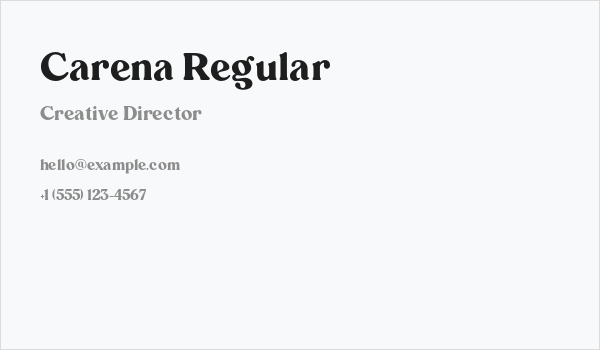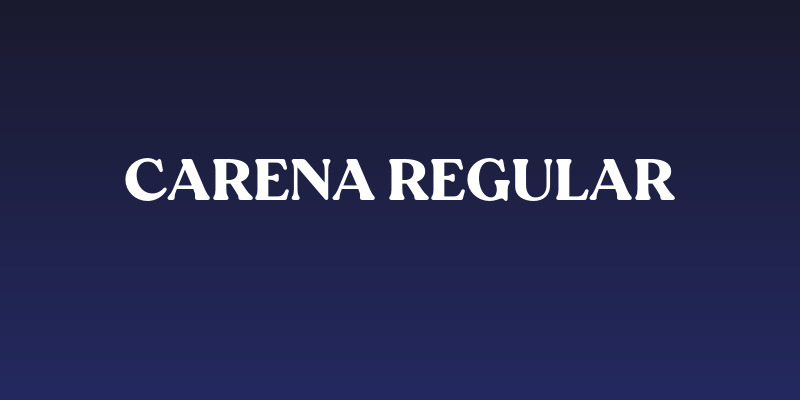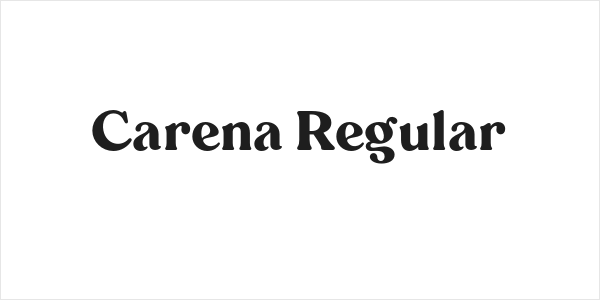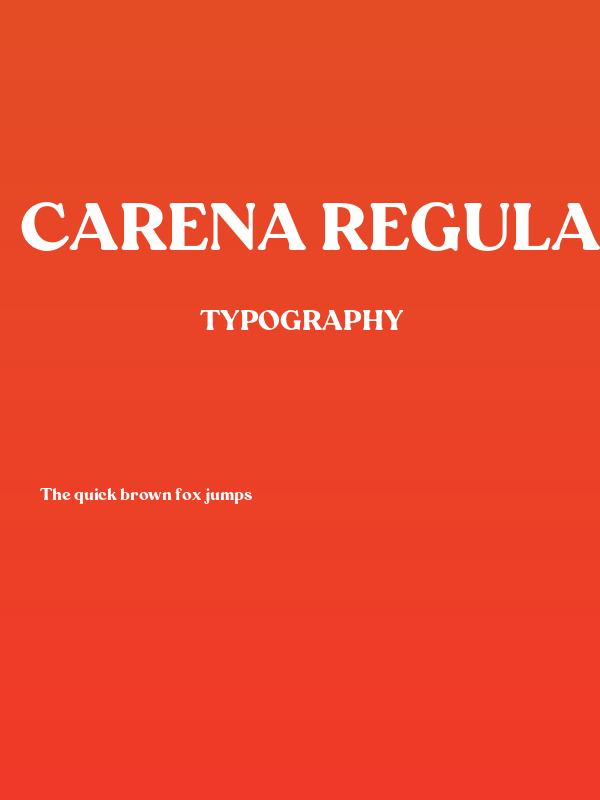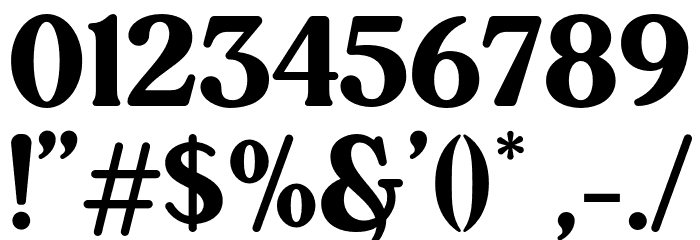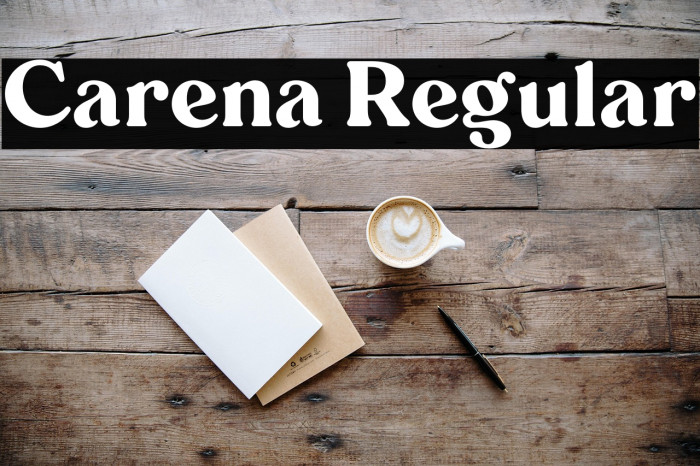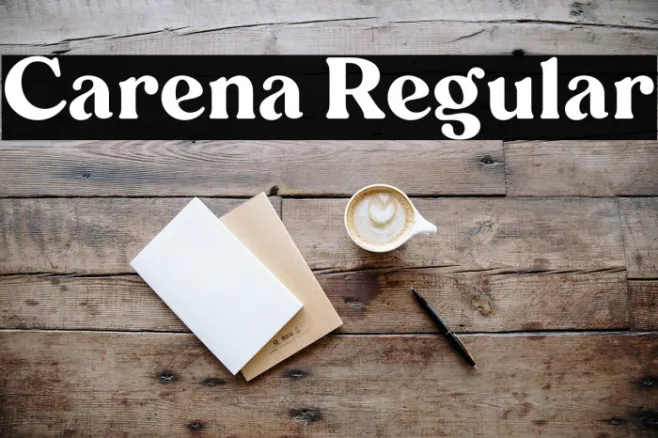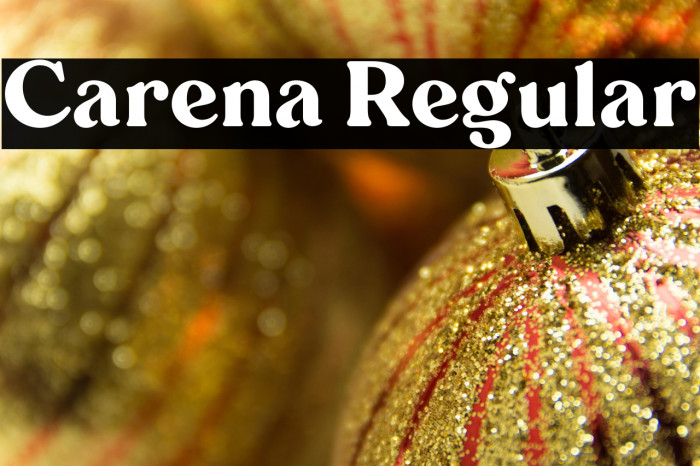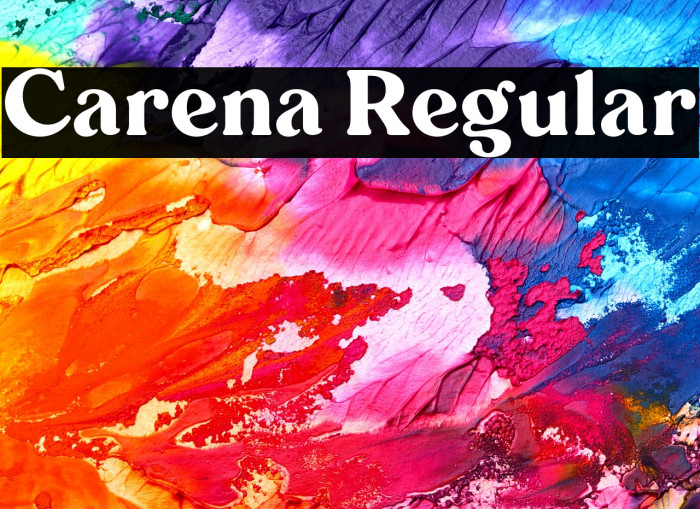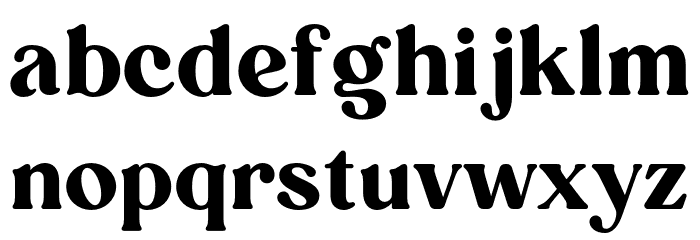
Carena Regular Font
Carena Regular Description
This font features a bold and robust serif style, characterized by its thick strokes and strong presence. The serifs are pronounced, adding a classic and authoritative feel to the typeface. The uppercase letters are tall and commanding, while the lowercase letters maintain a consistent and harmonious flow. The numerals are equally bold, ensuring readability and impact. Special characters are designed with the same attention to detail, making them suitable for various applications. Overall, this font exudes a sense of tradition and reliability, making it ideal for projects that require a touch of elegance and strength.
| Use Case | Headlines, Logos, Editorial design |
| Proposed Projects | Ideal for book covers, editorial design, branding, and formal invitations. |